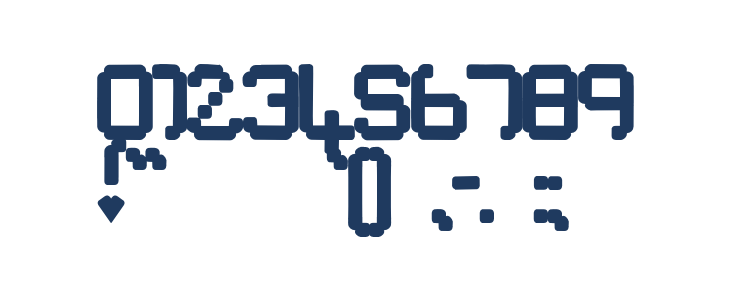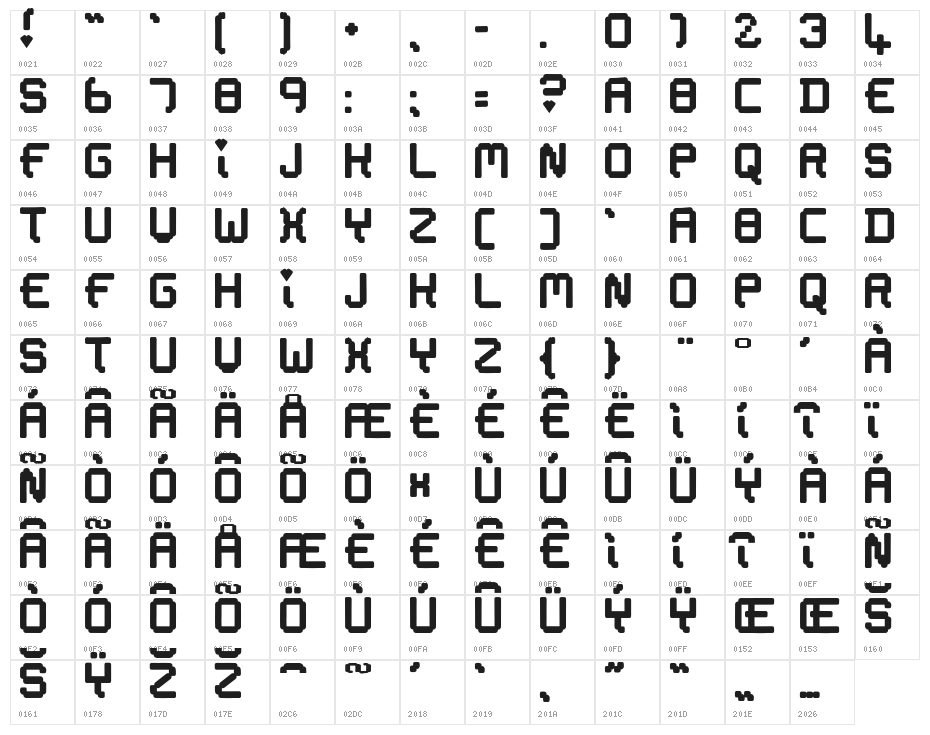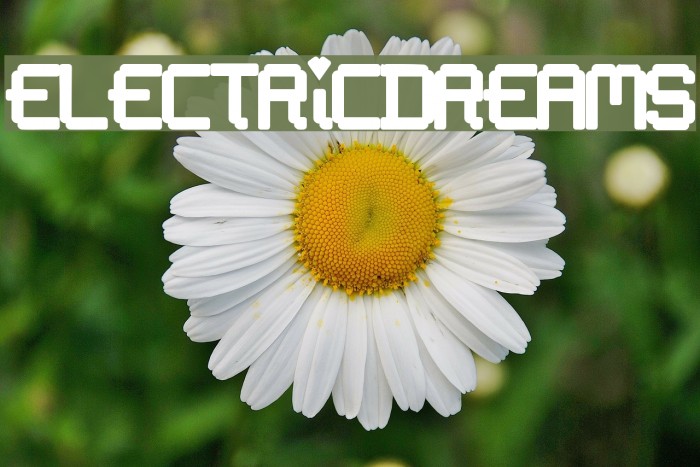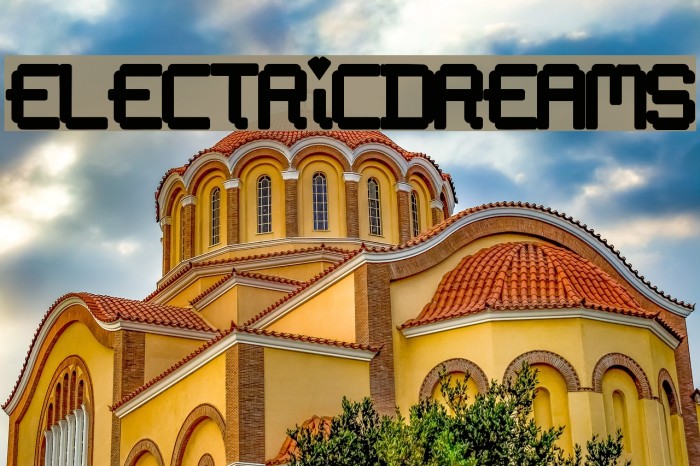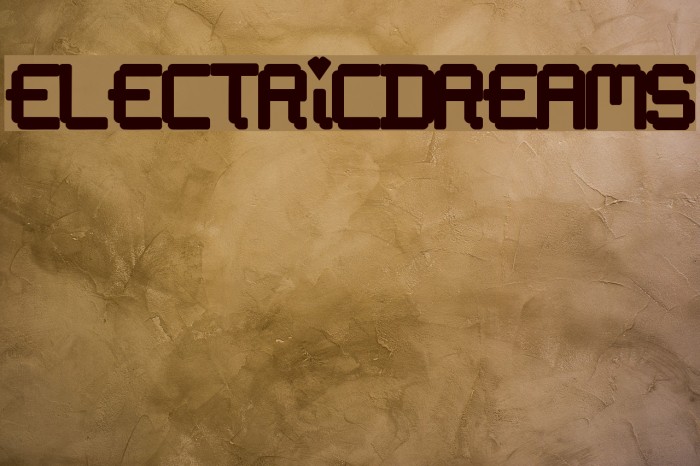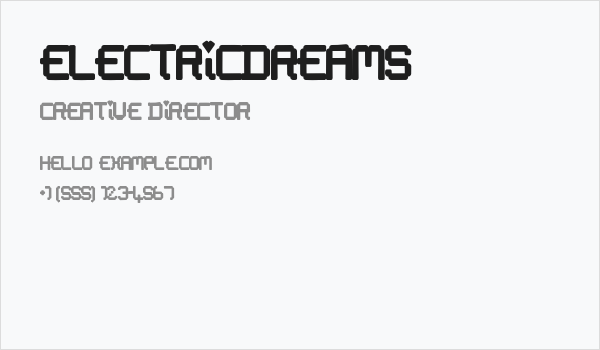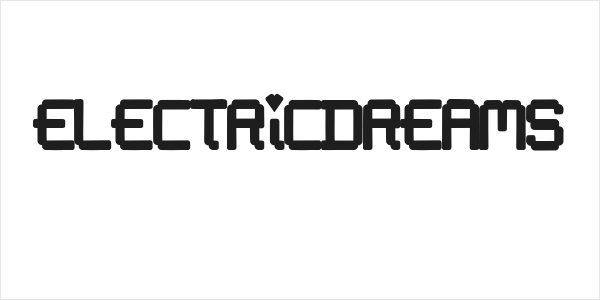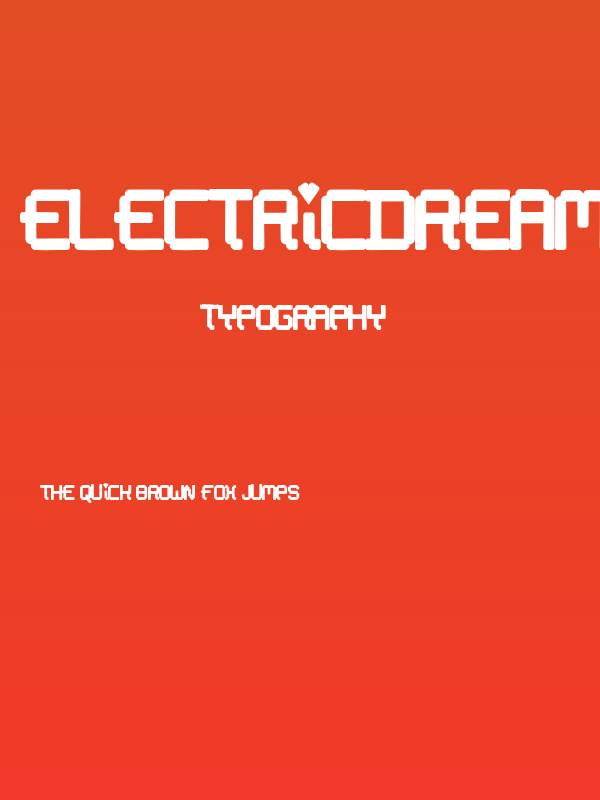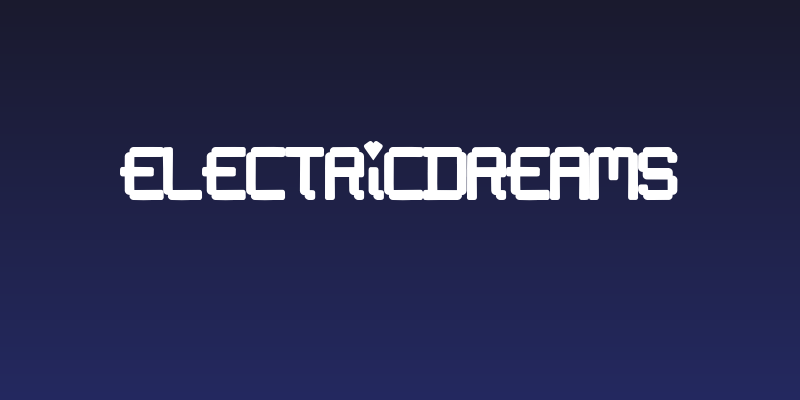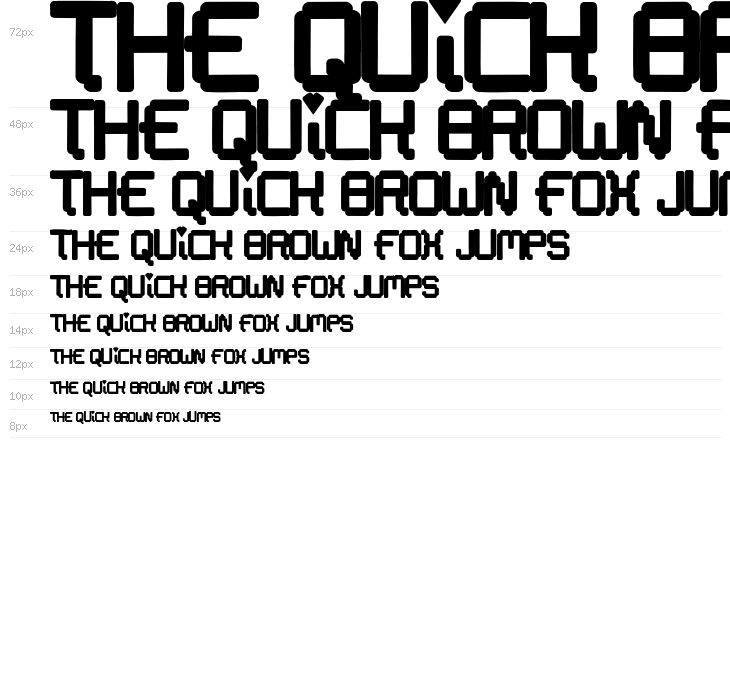
ElectricDreams Font
ElectricDreams Description
This font features a bold and futuristic design with a distinctly digital aesthetic. The characters are constructed with thick, block-like strokes that give a sense of solidity and strength. Each letter and number is designed with a geometric precision, incorporating sharp angles and straight lines. The font has a unique, almost pixelated appearance, reminiscent of early computer graphics or digital displays. The special characters maintain this cohesive style, adding to the overall modern and tech-inspired look. The spacing between characters is tight, enhancing the compact and efficient feel of the design.
| Proposed Projects | Ideal for tech-related branding, digital art projects, video game interfaces, and futuristic-themed posters. |